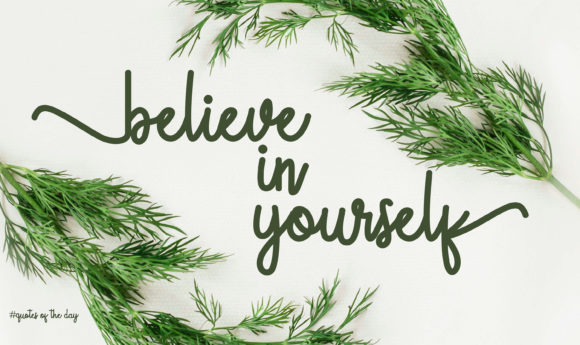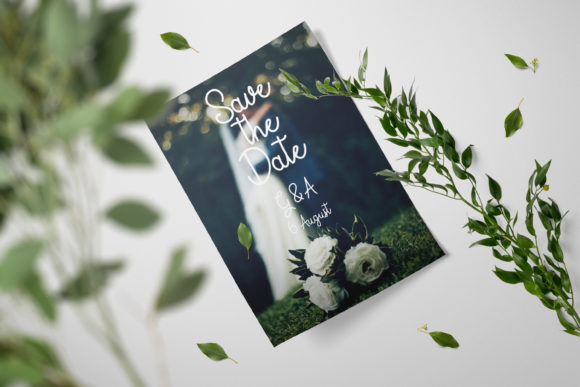
Fairy Font
db-ku.com - Script & Handwritten -- Fairy is a magical script font carefully created with a touch of elegance. Whether you’re looking for fonts for Instagram or calligraphy scripts for DIY projects, this font will turn any creative idea into a true piece of art! Fairy is PUA encoded which means you can access all of the glyphs and swashes with ease!